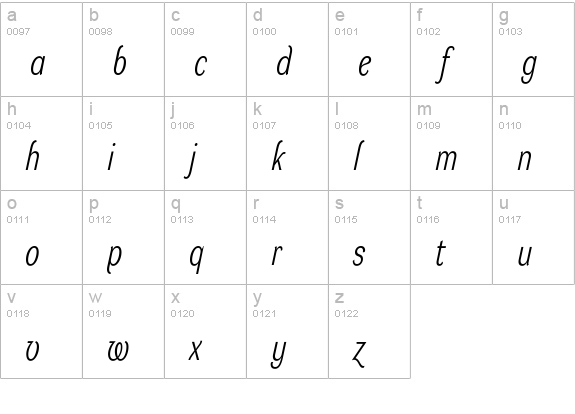
Dynamo Italic L C is a distinctive, italic variant in the Dynamo typeface family \xE2\x80\x94 well suited to design and typography projects.
Dynamo Italic L C font is a bold and dynamic typeface that exudes a sense of energy and modernity. Its sleek and stylish design makes it perfect for adding a touch of sophistication to any project. The italicized letterforms flow smoothly, creating a sense of movement and vitality. This font is versatile and can be used for a variety of design purposes, including headlines, logos, posters, and more. Its unique style is sure to make a statement and grab the attention of viewers. Best of all, Dynamo Italic L C font is free to download at FontsMarket.com. So you can elevate your designs without breaking the bank. Don't miss out on this opportunity to add a touch of flair and elegance to your projects with this stunning font.